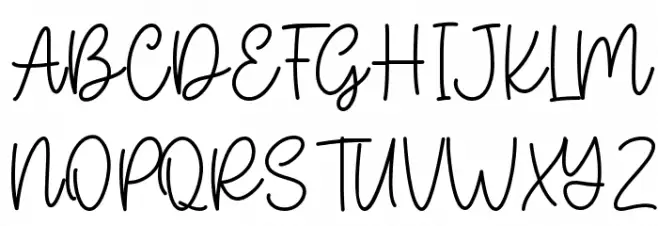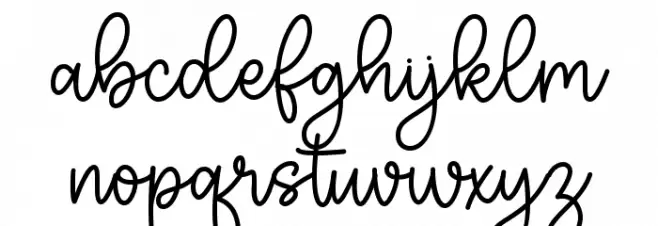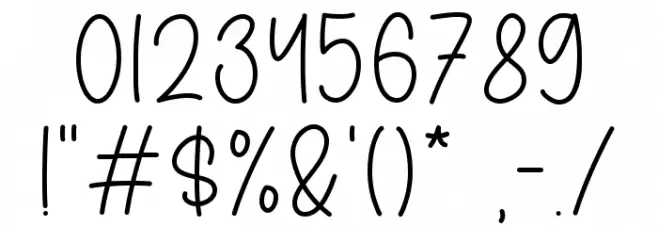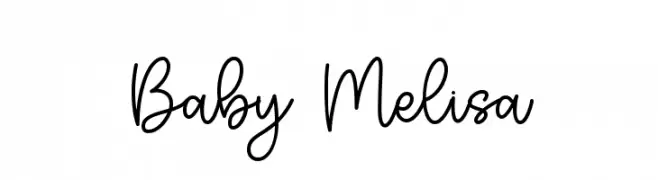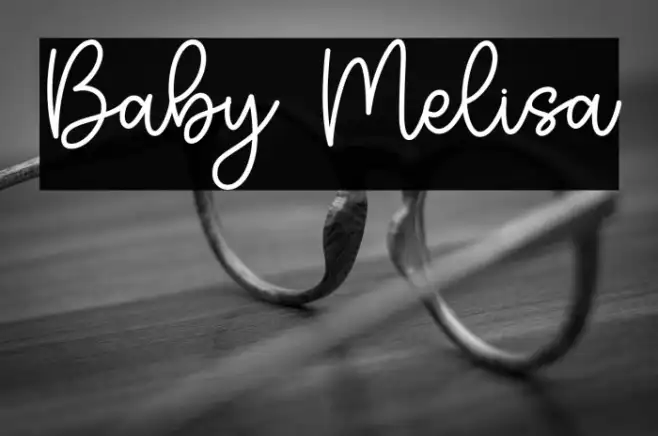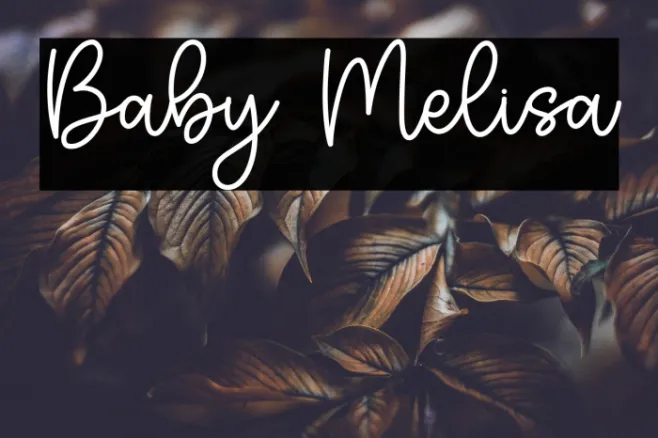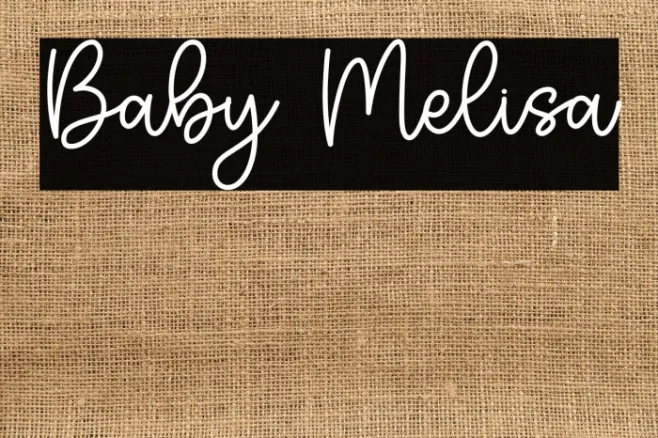
Baby Melisa
A playful and casual handwritten script font with smooth curves and a friendly appearance.
Casual handwritten script font.
- Proposed Projects: Greeting cards, invitations, personal branding.
- Overall Style: Casual, Friendly
- Use Case: Logos, Invitations, Personal projects